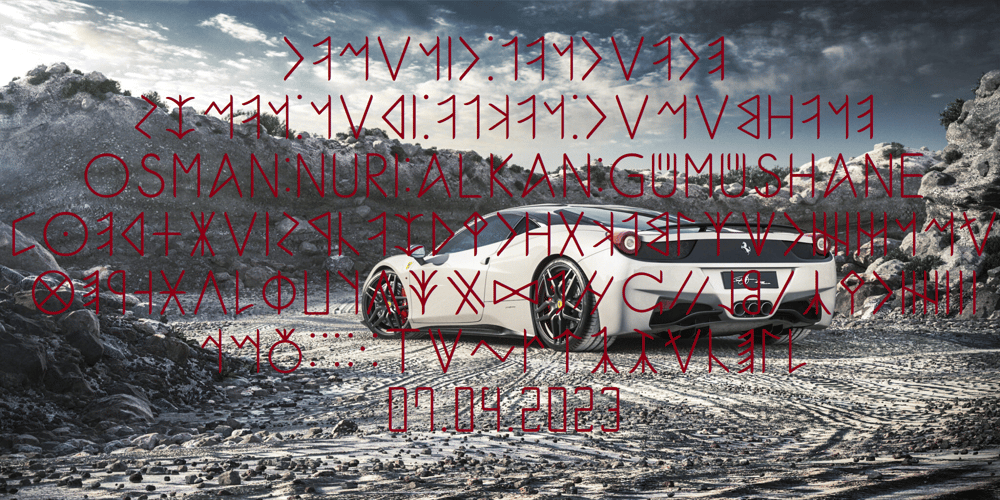
Ongunkan Camunic Script Font Family was designed by Osman Nuri ALKAN and published by Runic World Tamgacı. Ongunkan Camunic Script contains 1 styles and family package options. The Camunic language is an extinct language that was spoken in the 1st millennium BC in the Valcamonica and the Valtellina in Northern Italy, both in the Central Alps. The language is sparsely attested to an extent that makes any classification attempt uncertain – even the discussion of whether it should be considered a pre–Indo-European or an Indo-European language has remained indecisive. Among several suggestions, it has been hypothesized that Camunic is related to the Raetic language from the Tyrsenian language family, or to the Celtic languages.The extant corpus is carved on rock. There are at least 170 known inscriptions, the majority of which are only a few words long. The writing system used is a variant of the north-Etruscan alphabet, known as the Camunian alphabet or alphabet of Sondrio. Longer inscriptions show that Camunic writing used boustrophedon.Its name derives from the people of the Camunni, who lived during the Iron Age in Valcamonica and were the creators of many of the stone carvings in the area. Abecedariums found in Nadro and Piancogno have been dated to between 500 BC and 50 AD.The amount of material is insufficient to fully decipher the language. Some scholars think it may be related to Raetic and to Etruscan, but it is considered premature to make such affiliation. Other scholars suggest that Camunic could be a Celtic or another unknown Indo-European language.